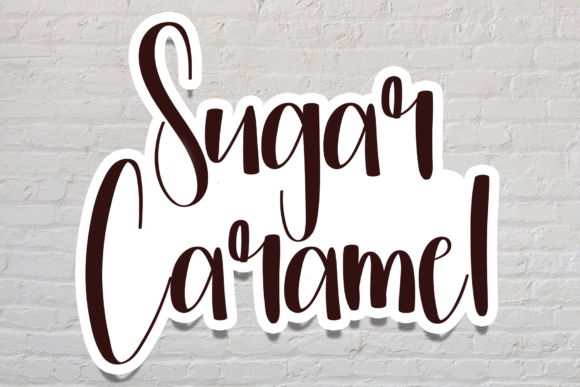
Behold, Sugar Caramel Font, a masterpiece of calligraphy, a dance of letters across the digital canvas, captivating hearts and imaginations. Let your creativity bloom with this enchanting script font, a testament to the beauty of handwritten artistry, crafted by the skilled hands of Misterletter.co.
Sugar Caramel Font is not just a collection of letters; it's an expression of elegance, a symphony of curves and flourishes that will add a touch of sophistication and charm to your creative endeavors. With its delicate strokes and flowing lines, this font embodies the essence of romance, making it the perfect choice for wedding invitations, labels, and all things matrimony.
Imagine your wedding invitations adorned with the graceful characters of Sugar Caramel Font, each letter a work of art, conveying the joy and love of your special day. Picture your social media posts adorned with eye-catching logos, your advertisements radiating an air of elegance, and your product packaging exuding a touch of exclusivity.
With Sugar Caramel Font, you can transform ordinary words into captivating expressions, adding a personal touch to your designs. Create wall displays that speak volumes, with quotes and messages that dance across the surface, captivating the attention of all who behold them. Let your imagination soar as you design product packaging that stands out on shelves, labels that add a touch of charm to your products, and watermarks that subtly enhance your photography.
Whether you're a seasoned graphic designer or just starting your creative journey, Sugar Caramel Font is the perfect addition to your digital toolbox. Its versatility extends beyond wedding-themed projects, lending its charm to social media posts, logos, advertisements, product packaging, product designs, labels, photography, watermarks, invitations, and stationery.
Don't settle for ordinary fonts that blend into the background. Choose Sugar Caramel Font and let your creativity shine. Experience the joy of creating designs that captivate, designs that leave a lasting impression, and designs that truly reflect your unique style.